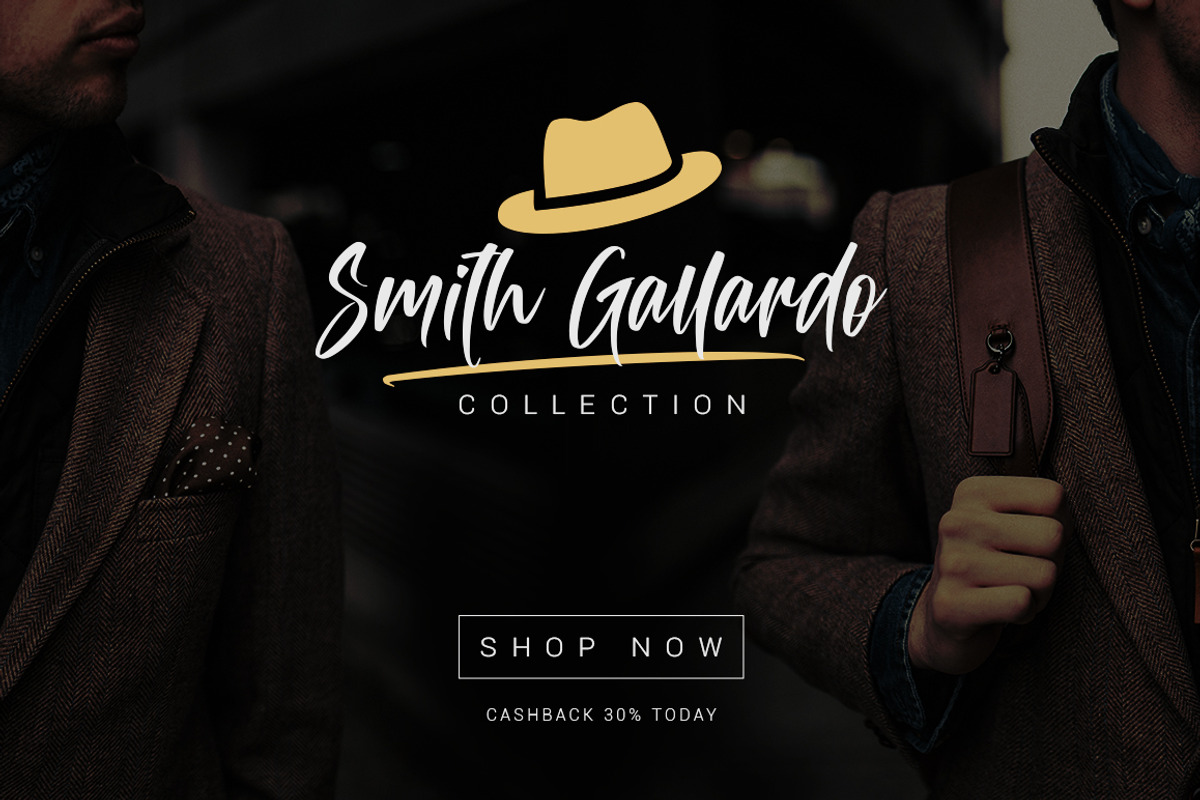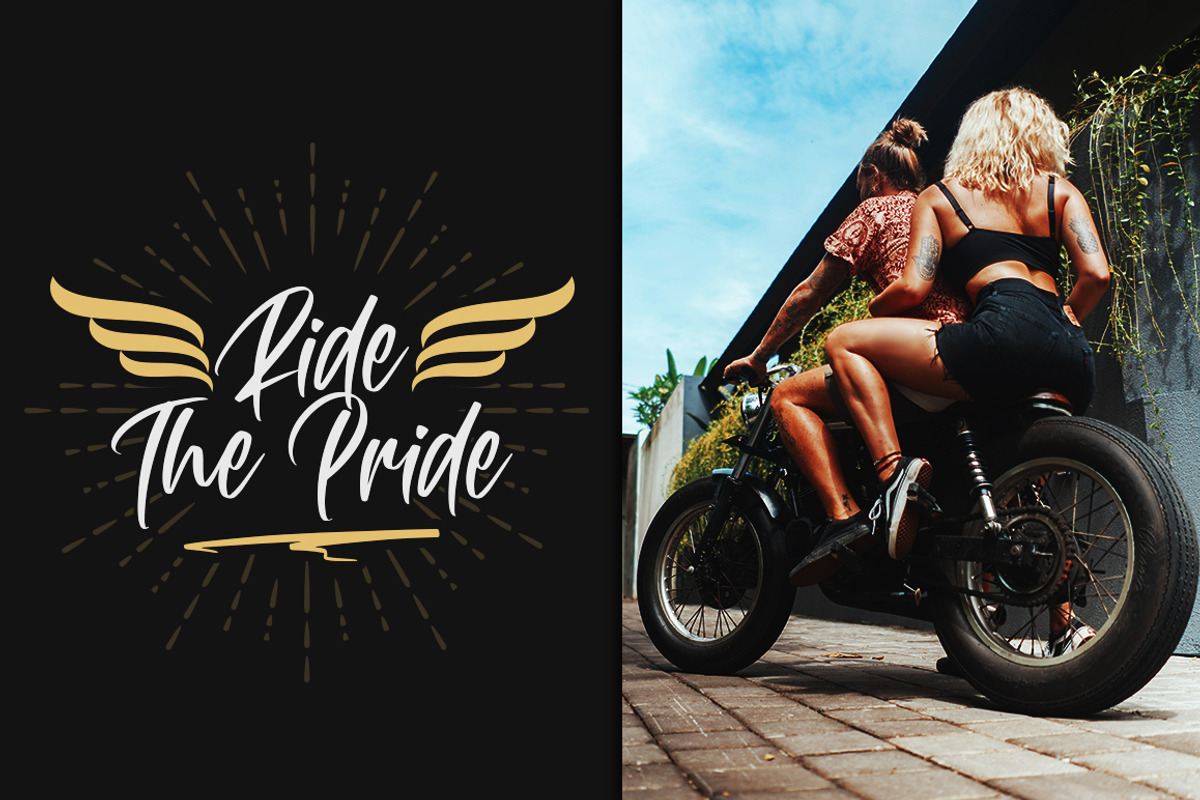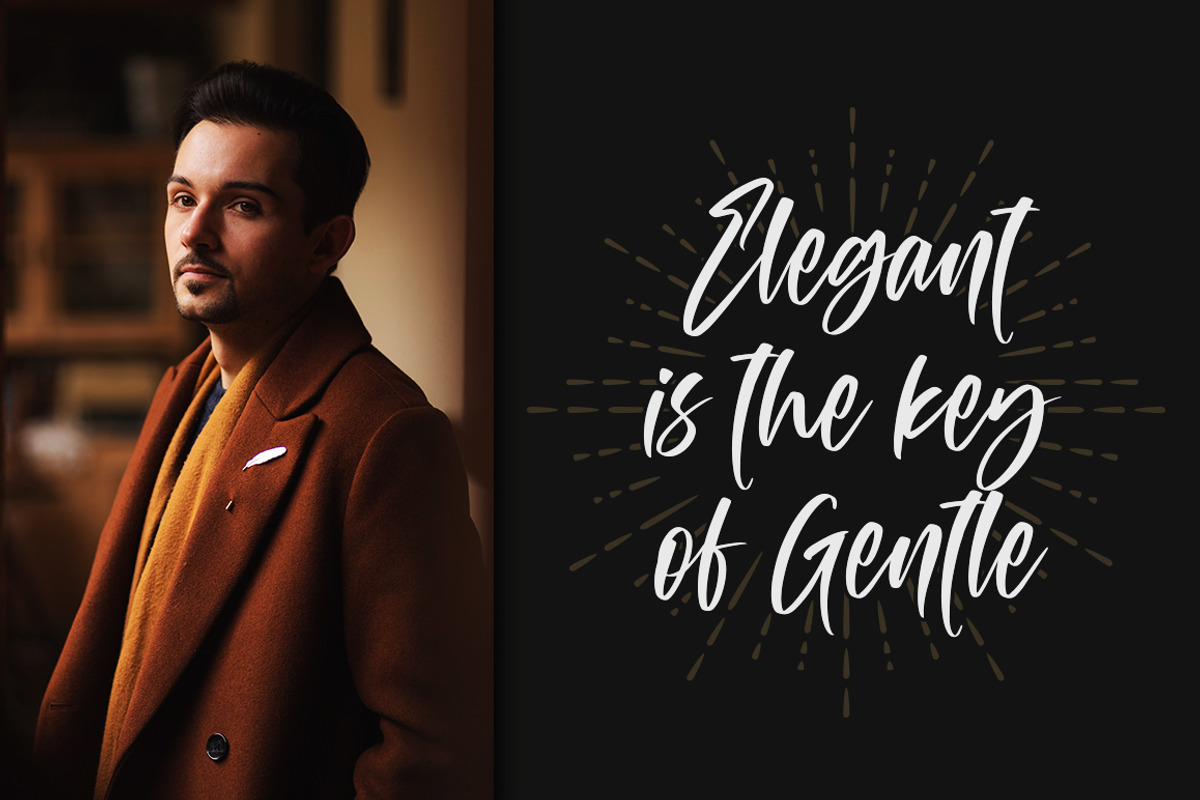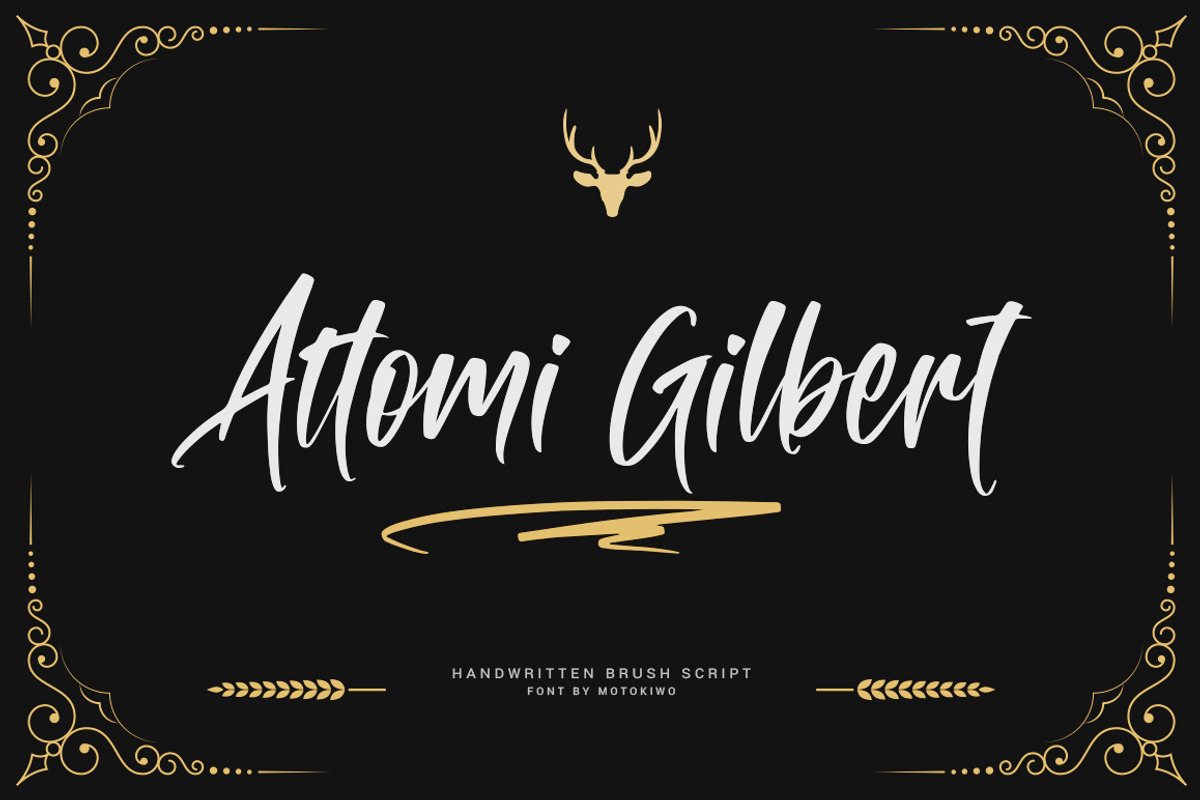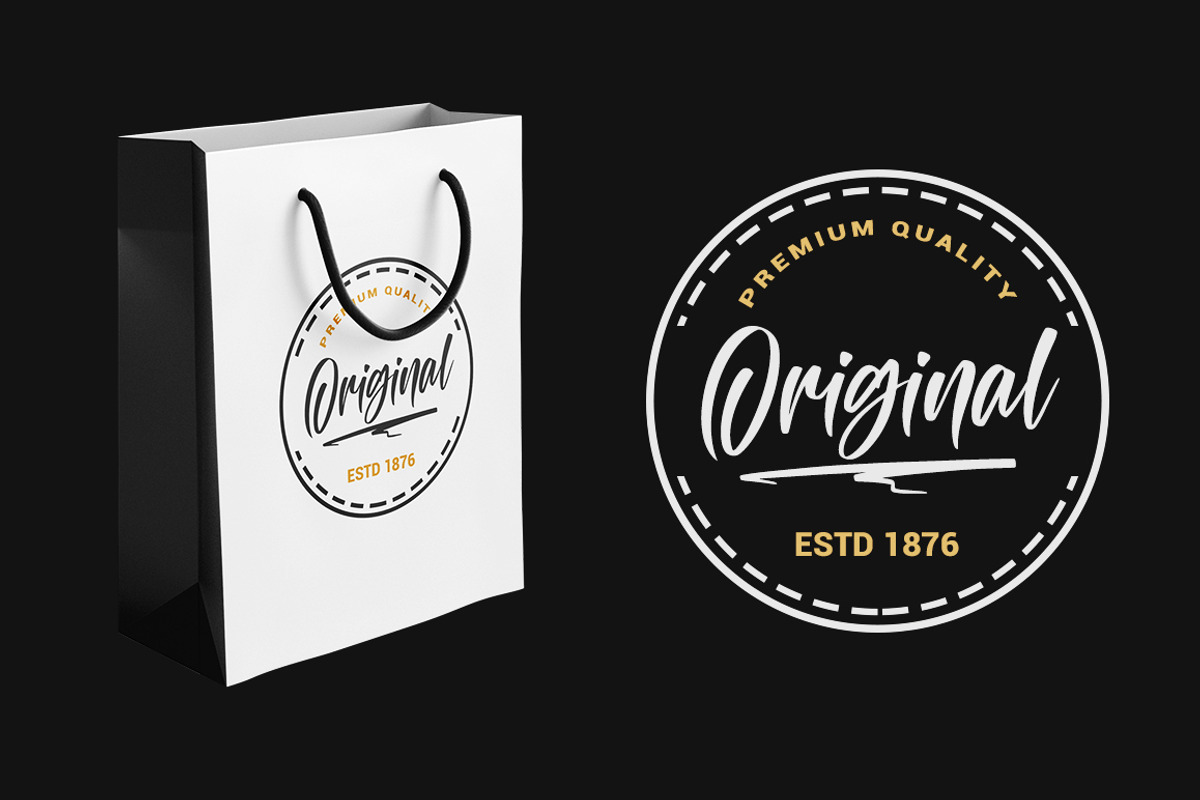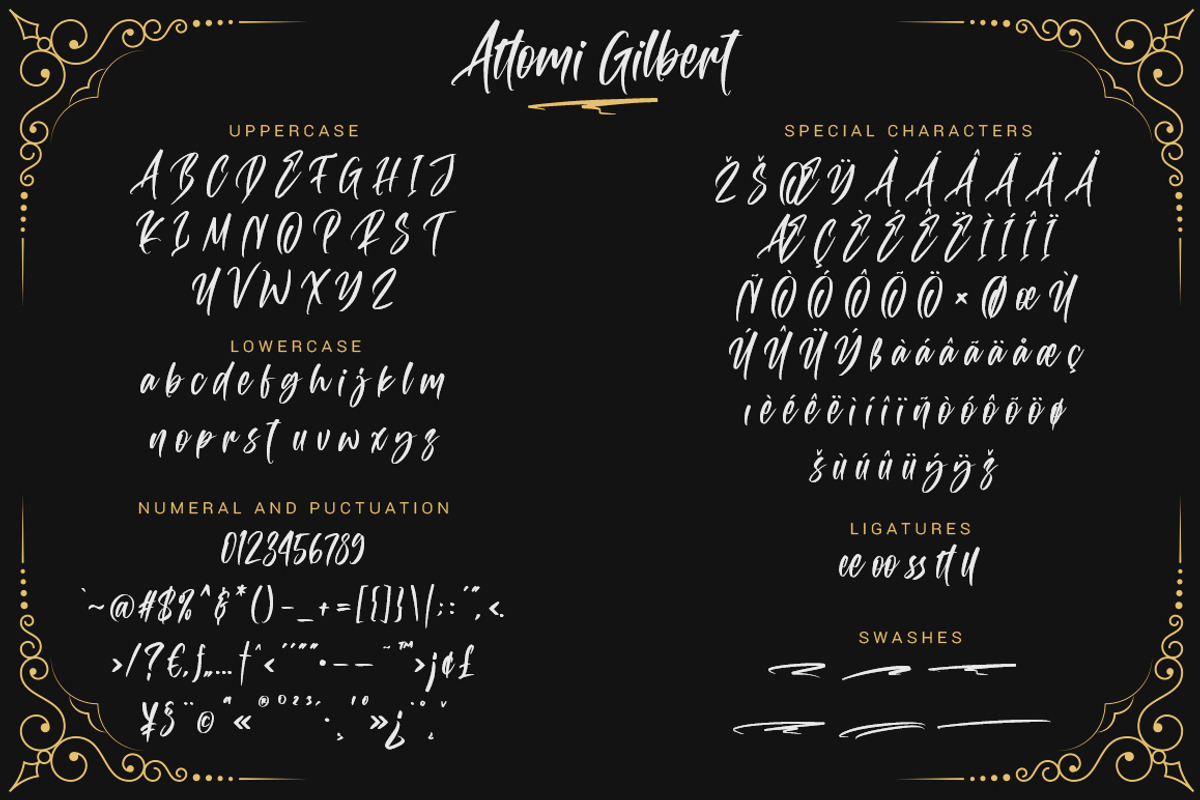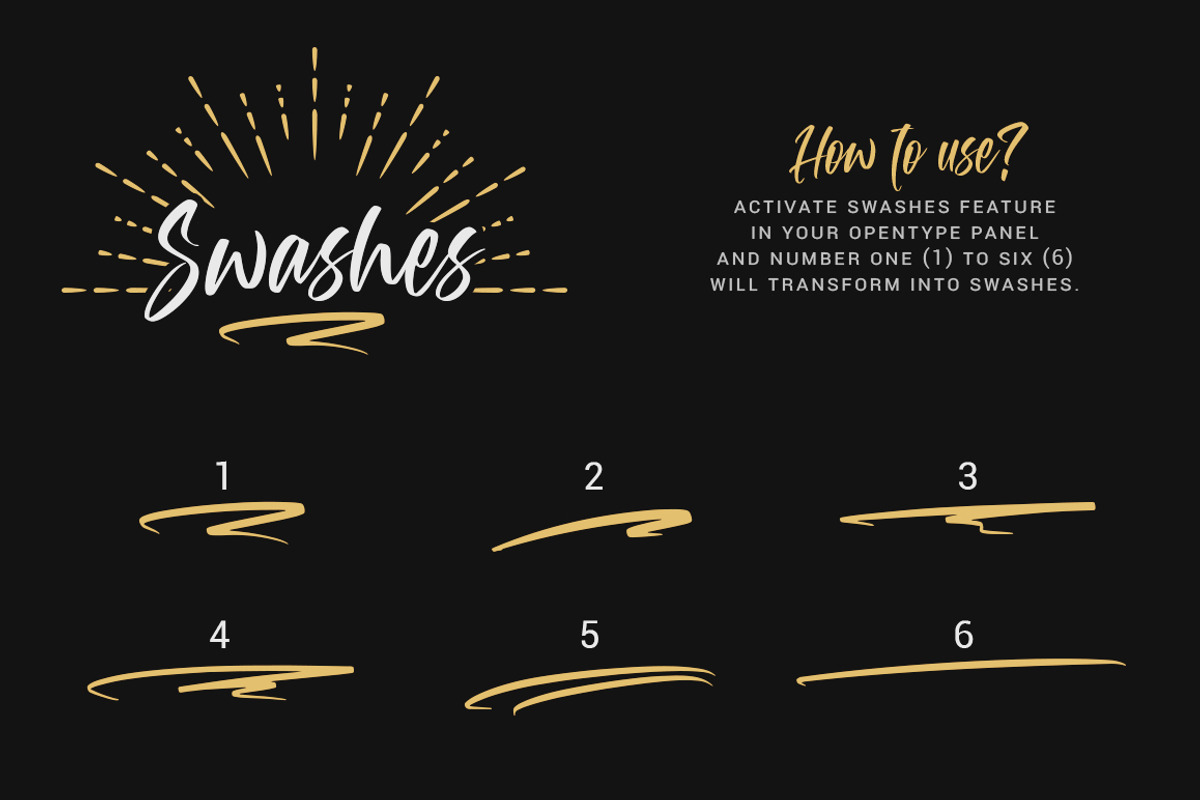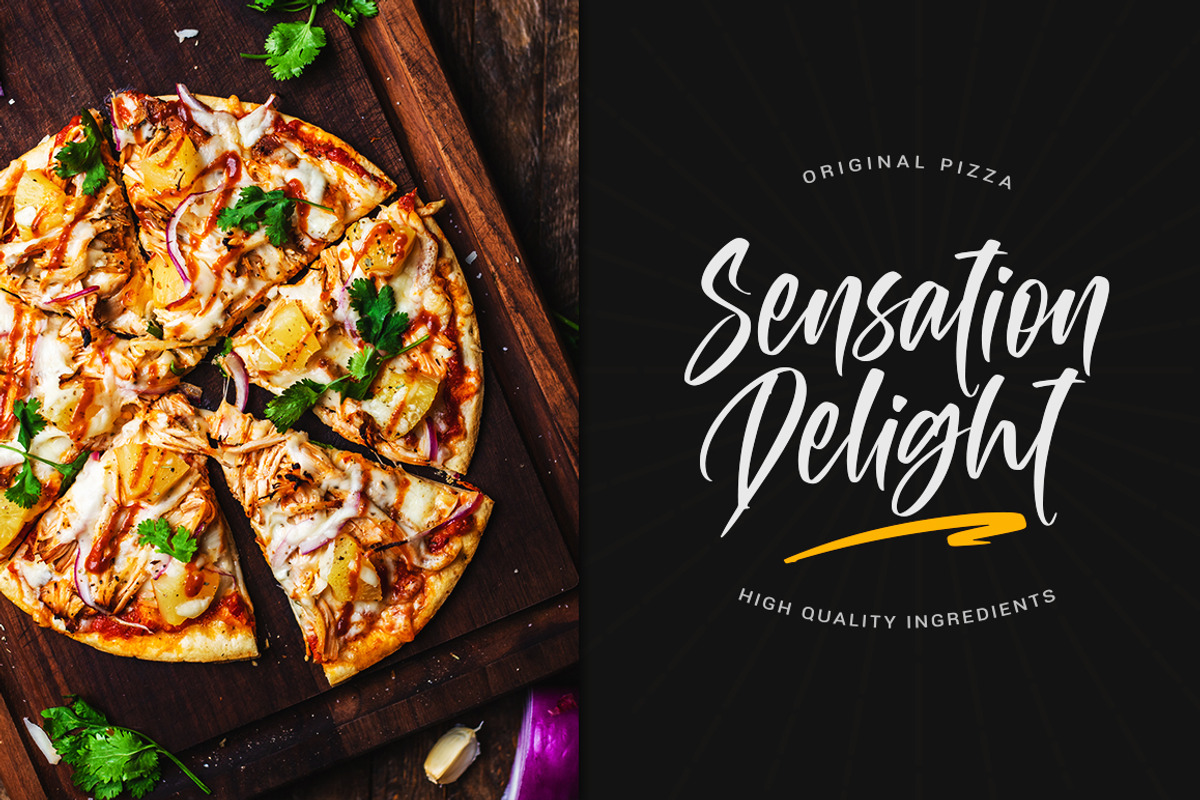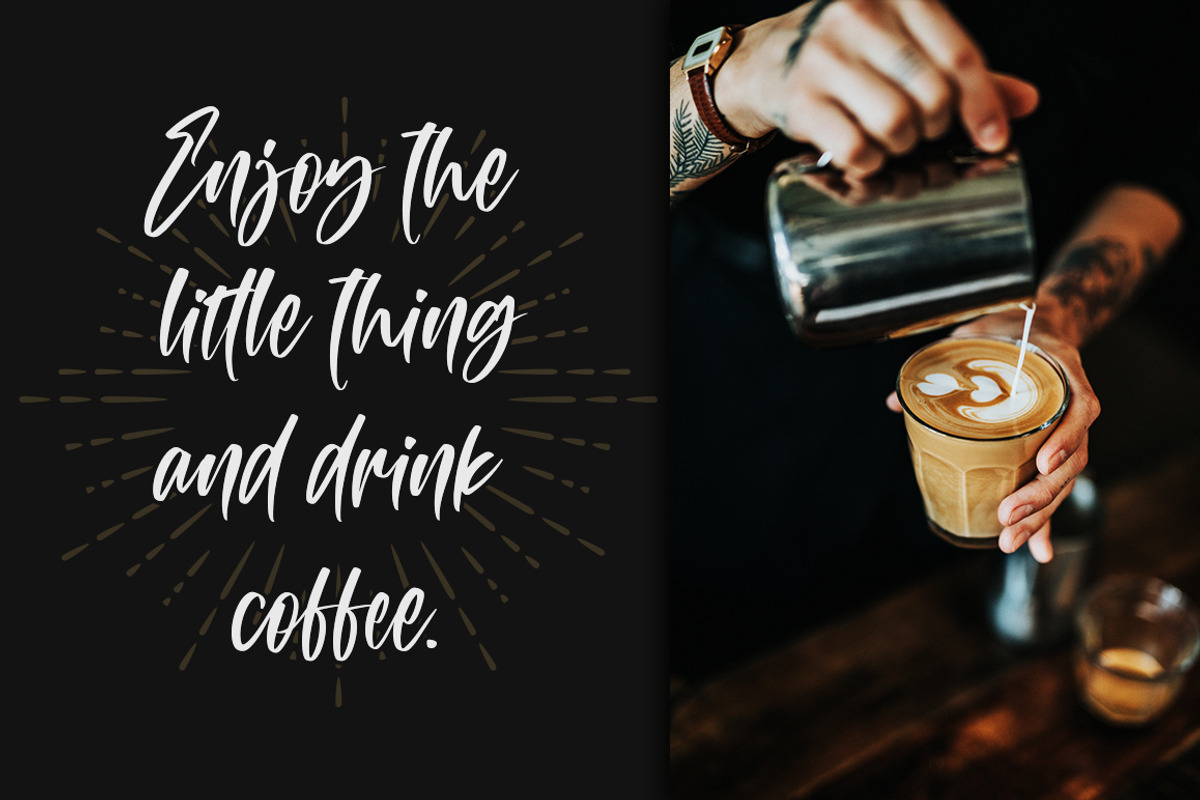
Attomi Gilbert
Organic handwriting gesture from a cool brush that useful for multipurpose projects. This is Attomi Gilbert, an elegant script font with passionate handmade feels in each characters. You can use it for vintage or urban projects style.
- Access All Alternates
- Special Characters (Multilingual)